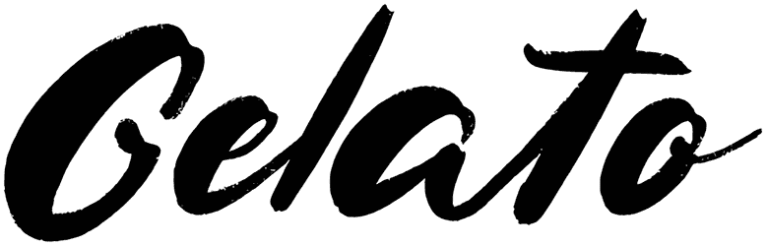
Beltanira Signature Font
This script font can be applauded for its sweet tune and put into any invitation, card, or banner display to stand out from the masses. Its natural aesthetic concepts merely exist and can add value to your projects, coming true for free. So, take shape of something new right now and see how this signature font sounds excellent.